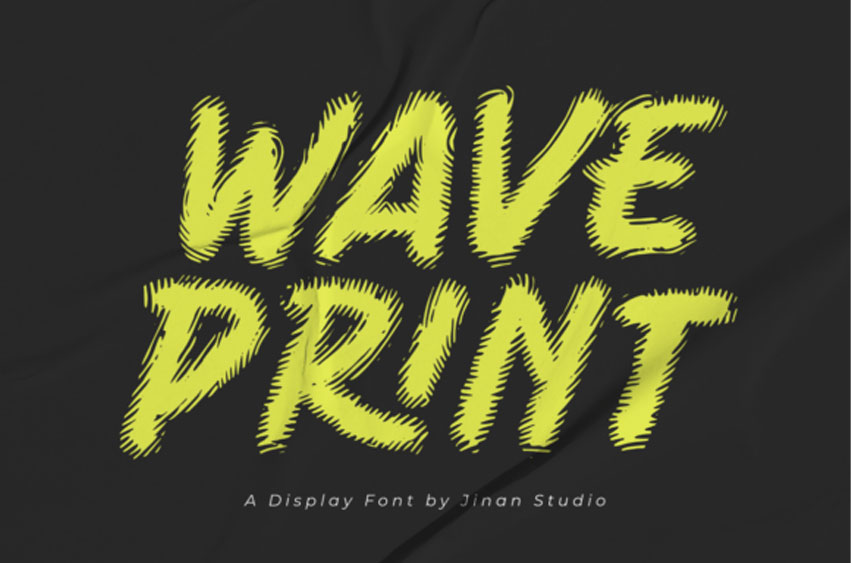
Wave Print Font is a bold and energetic display font, designed to bring a chilling yet playful touch to your Halloween projects. With its scratchy brush strokes and jagged textures, this font feels alive—perfect for evoking spooky vibes, eerie posters, haunted party invites, creepy merchandise, and bold seasonal headlines.
Whether you’re crafting a horror movie title, a haunted house flyer, or any design that demands a strikingly scary look, Wave Print will instantly capture attention with its unique hand-drawn style.
Wave Print Font Preview